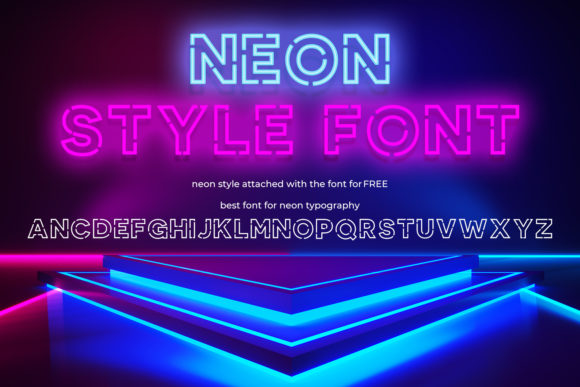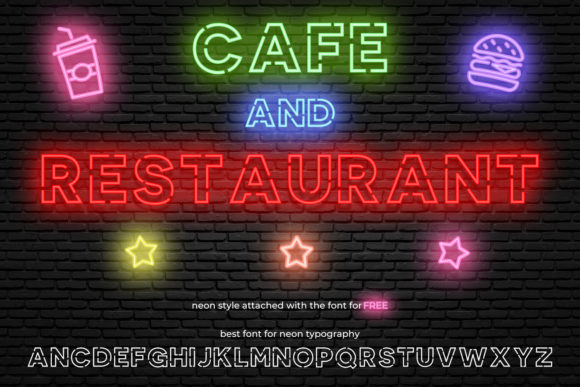
Neon Style Font
About the Neon Style Font
Welcome to the world of Neon Style Font, a typeface that will inspire your next great project. Neon Style is a unique display font. It will elevate a wide range of design projects to the highest level, be it branding, headings, wedding designs, invitations, signatures, logos, labels, and much more!
Neon Style’s bold, energetic character makes it ideal for headlines, short impactful statements, and branding projects requiring a vibrant, modern feel. It excels in posters, logos, and packaging where its distinctive forms command attention. However, its strong visual weight makes it unsuitable for body text or extended reading. Small sizes lose legibility.
For optimal pairings, consider complementing Neon Style with a clean sans-serif like Open Sans for body text or a more geometric sans-serif like Futura for a contrasting yet balanced aesthetic. A delicate script font could add a touch of elegance to invitations or branding materials where Neon Style serves as a strong headline.
The font’s inherent energy is best suited for brands targeting youthful, dynamic audiences or projects emphasizing excitement and innovation. Avoid using it for contexts demanding sophistication or understated elegance.
Neon Style Font Usage Examples
Neon Style Font Example